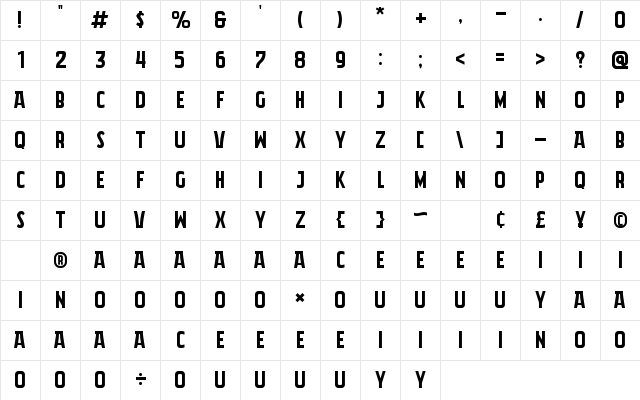
Complete Akira Jimbo Regular glyph index. Displaying only characters natively supported by Akira Jimbo Regular font.
Akira Jimbo is a composed and adaptable typeface that performs quietly and consistently across a wide range of design contexts.